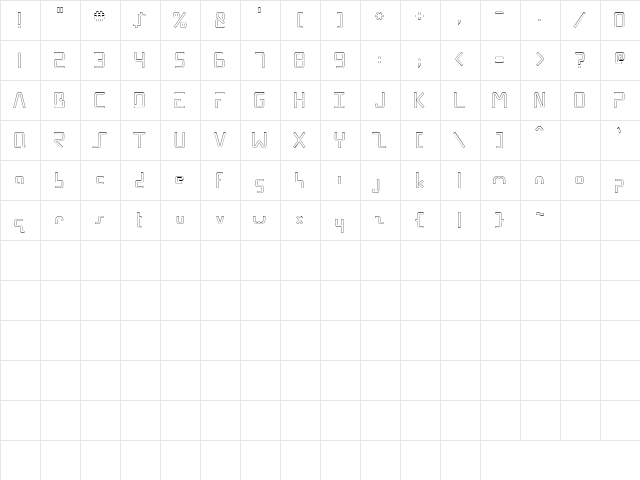
CK Video Game Regular
Design Context for CK Video Game Typeface
CK Video Game takes a measured approach to typography — its balanced proportions and neutral character make it a reliable workhorse for both digital and print work.